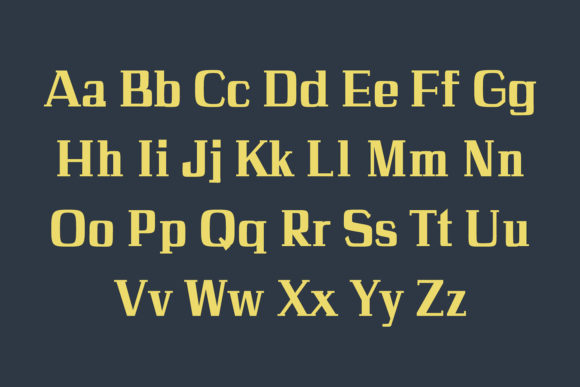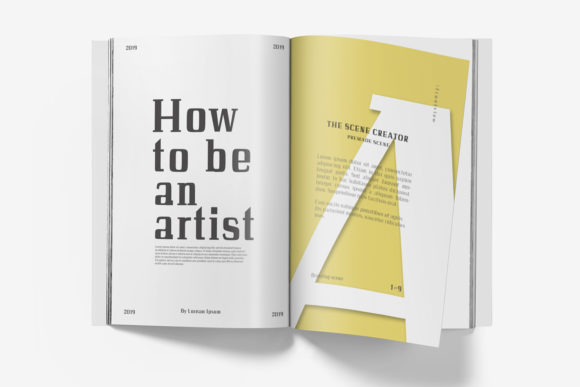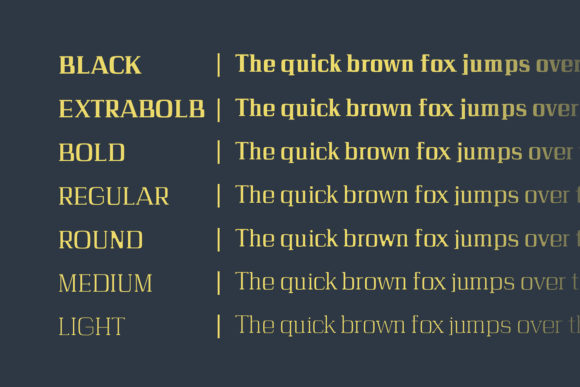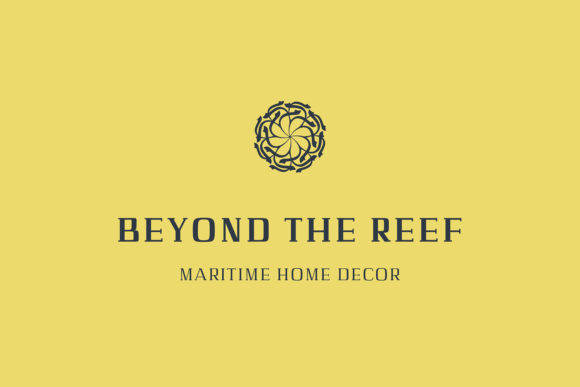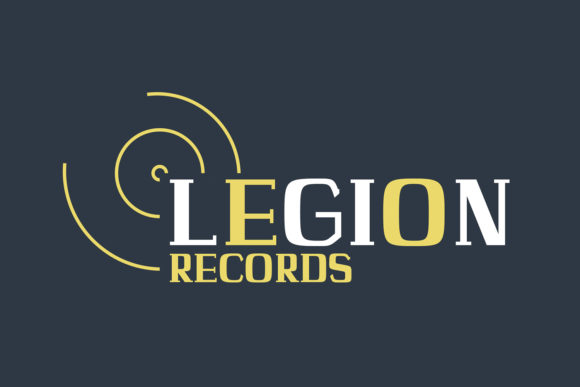
Introducing Calvin Slab: A Modern Slab Serif Font with a Playful Twist
In the world of typography, slab serif fonts have always been a popular choice for designers looking to add a touch of elegance and sophistication to their projects. However, finding the perfect slab serif font that balances seriousness with playfulness can be a daunting task. That’s where Calvin Slab comes in – a modern slab serif font that’s both serious and playful, making it the perfect addition to any design project.
What is Calvin Slab?
Calvin Slab is a carefully crafted slab serif font that’s designed to bring a fresh perspective to lettering. With its clean lines, geometric shapes, and subtle rounded edges, Calvin Slab exudes a sense of modernity while maintaining a classic feel. This font is perfect for designers who want to add a touch of sophistication to their projects without sacrificing playfulness.
Key Features of Calvin Slab
- Unique Letterforms: Calvin Slab boasts unique letterforms that are both elegant and quirky. The font’s letterforms are designed to be highly legible, making it perfect for body text, headings, and titles.
- Modern Approach: Calvin Slab takes a modern approach to lettering, with a focus on clean lines, geometric shapes, and subtle rounded edges. This gives the font a fresh and contemporary feel that’s perfect for modern design projects.
- Playful Touch: Despite its serious and elegant appearance, Calvin Slab has a playful touch that sets it apart from other slab serif fonts. This makes it perfect for designers who want to add a bit of whimsy to their projects.
- Versatile: Calvin Slab is an incredibly versatile font that can be used for a wide range of design projects, from branding and advertising to packaging and digital design.
Who is Calvin Slab for?
Calvin Slab is perfect for designers, crafters, and businesses who want to add a touch of sophistication and playfulness to their projects. This font is ideal for:
- Graphic Designers: Calvin Slab is perfect for graphic designers who want to create visually stunning designs that are both elegant and playful.
- Crafters: Crafters who want to add a personal touch to their projects will love Calvin Slab’s unique letterforms and playful vibe.
- Businesses: Businesses that want to stand out from the crowd will appreciate Calvin Slab’s modern approach to lettering and its ability to add a touch of sophistication to their branding.
How to Use Calvin Slab
Calvin Slab is incredibly easy to use, and its versatility makes it perfect for a wide range of design projects. Here are a few ways to use Calvin Slab:
- Branding: Use Calvin Slab as a logo font or as a font for your brand’s marketing materials to add a touch of sophistication and playfulness.
- Digital Design: Calvin Slab is perfect for digital design projects, from website headers to social media graphics.
- Packaging: Add a touch of elegance and whimsy to your packaging designs with Calvin Slab.
- Advertising: Use Calvin Slab in your advertising materials to grab attention and add a touch of sophistication.
Calvin Slab is a game-changing slab serif font that’s both serious and playful. Its modern approach to lettering, unique letterforms, and versatile nature make it perfect for designers, crafters, and businesses who want to add a touch of sophistication and whimsy to their projects. Whether you’re working on a branding project, digital design, or packaging, Calvin Slab is the perfect choice.